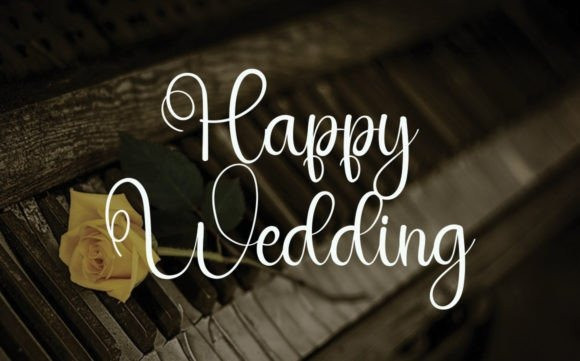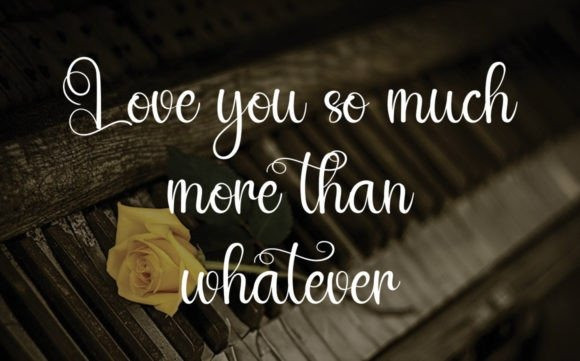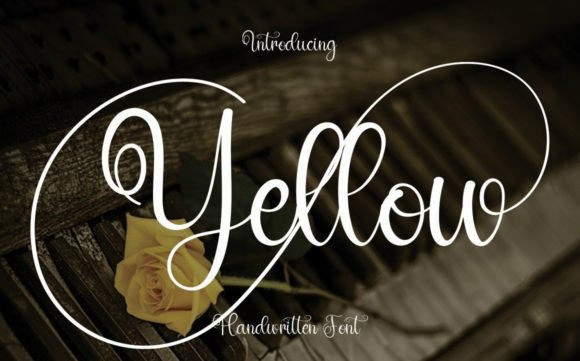
Yellow Script Typeface
Yellow Script Typeface is an enchanting handwritten font. This versatile font has a wide spectrum of applications ranging from greeting cards to headlines and is guaranteed to add a romantic feel to your next project!